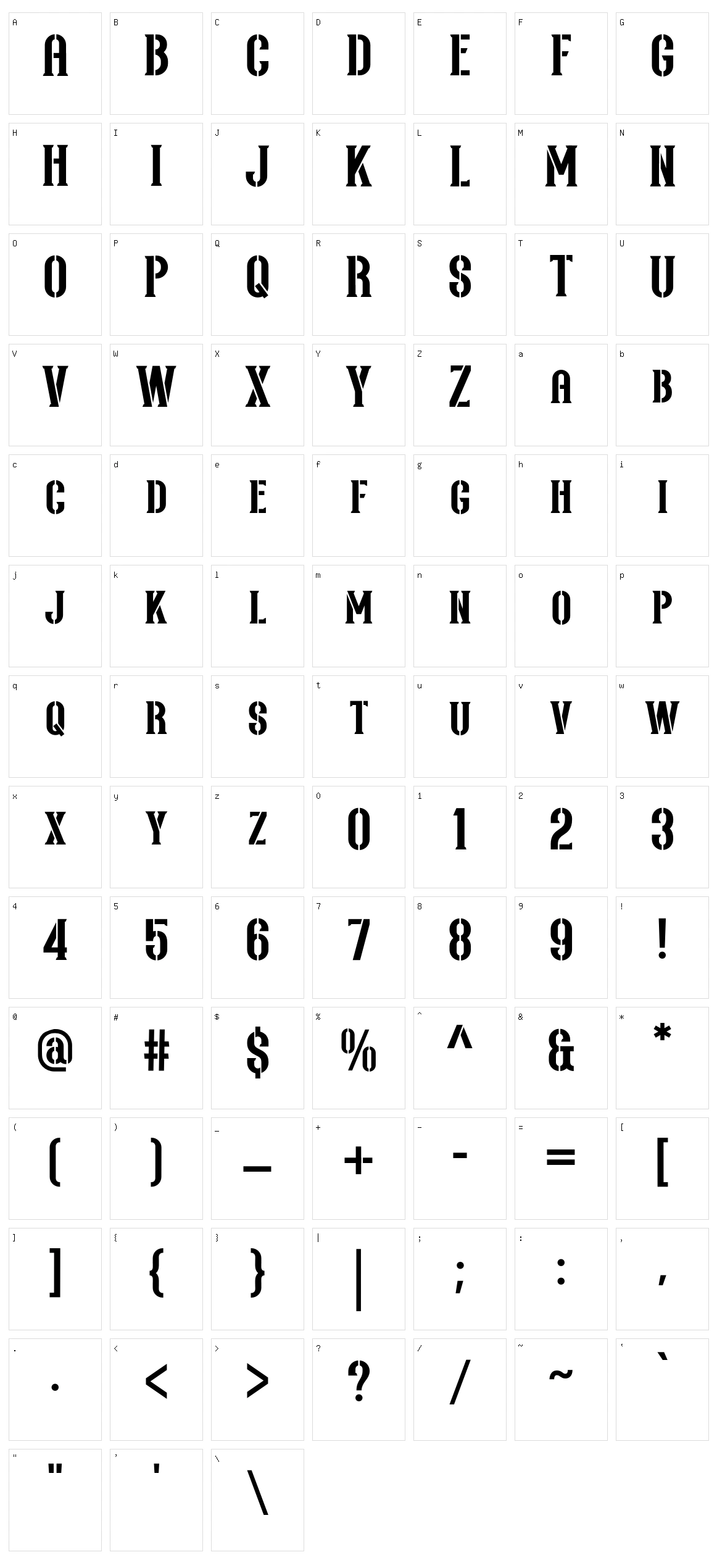
The free font Northash is carefully designed by Arterfak Project, showcasing a thoughtful balance of creativity and usability and falls under the Stencil font style. When you download the ZIP file, it contains only 49.61 KB of font files, making it lightweight and quick to download. Please review the license details below to understand permitted usage and distribution rights. If license information is not available, we recommend using this font for personal projects only or contacting the author directly for commercial usage permissions.